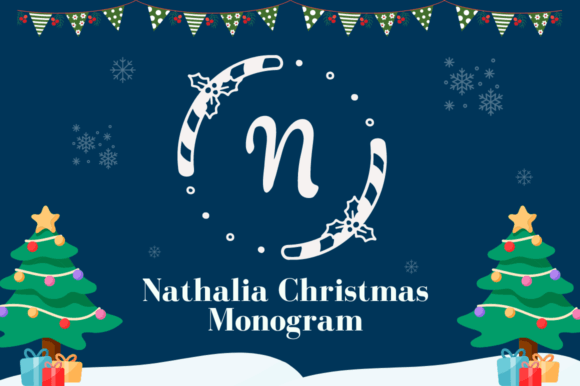
Get ready to showcase your festive spirit with Nathalia Christmas Monogram, the most enchanting decorative font family. Experience the magic of two captivating styles that transform effortlessly with the switch of letter casing. Unleash your creativity and design eye-catching party posters that radiate warmth and charm.
Nathalia Christmas Monogram is meticulously crafted to make your creations shine. Its elegant lines and intricate details add a touch of sophistication to any project. Whether you're designing business logos, branding materials, social media posts, or wedding invitations, this font family will elevate your designs to new heights.
Step into a world of endless possibilities with Nathalia Christmas Monogram. With its versatility, this font family is your trusty companion for various design projects. Create festive flyers that exude holiday cheer, design personalized Christmas cards that warm hearts, or craft stunning social media posts that spread joy and cheer. Your designs will radiate a touch of elegance and festive charm.
Make Nathalia Christmas Monogram your secret weapon for creating unforgettable designs. Its easy-to-use format allows you to effortlessly switch between uppercase and lowercase letters, revealing the two captivating styles. Experience the freedom of expressing yourself with endless variations that ignite your imagination.
Don't miss out on this opportunity to make your designs sparkle with Nathalia Christmas Monogram. Embrace the magic of Christmas and create visual masterpieces that leave a lasting impression. Let your creativity soar and showcase your festive spirit with this extraordinary font family.